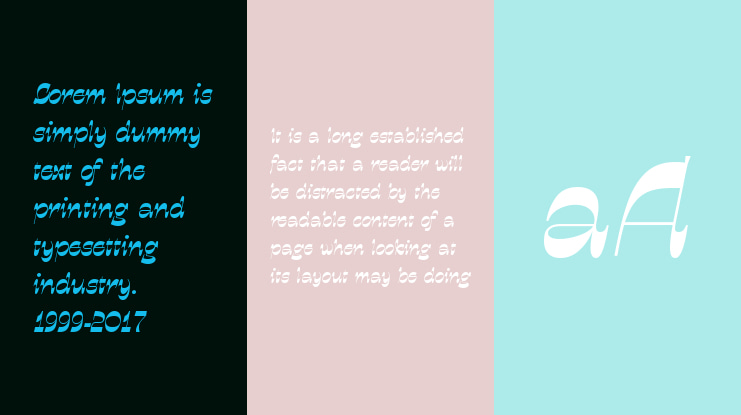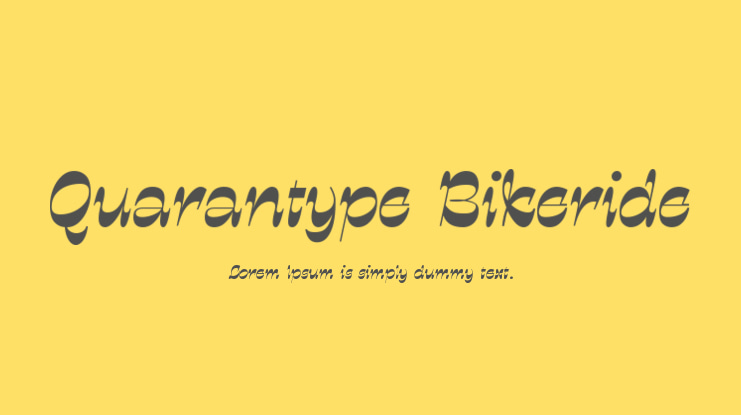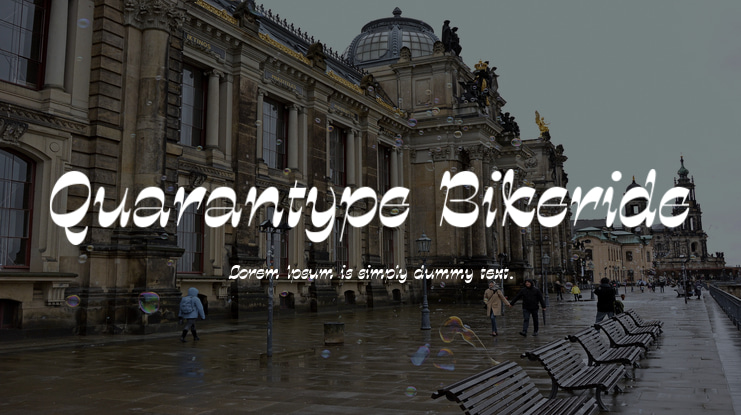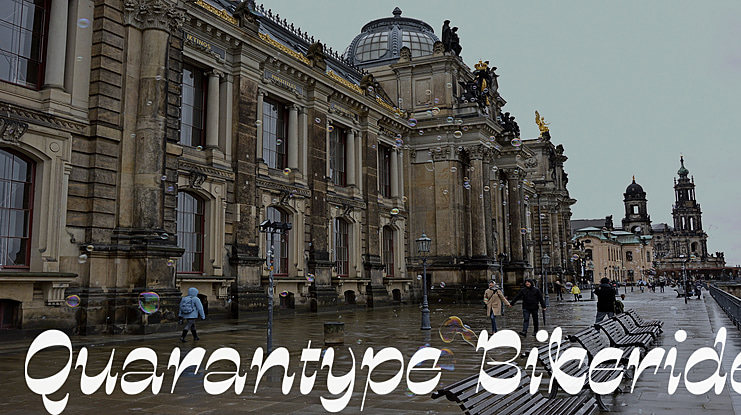
Quarantype Bikeride Font
Andrea Tartarelli
Trapped home during the Coronavirus outburst of March 2020 the Zetafonts team found some solace from the world-wide anxiety by designing letters for the #36daysoftype challenge. To fight dark thoughts and spread some good karma we decided to add a free font twist, selecting the best glyphs drawn to develop a collection of ten free typefaces for download.
We did our best to make this little gift to the community valuable, though developed in record time: although playful and excessive, these typefaces all stem from our current research in contemporary trends and historical design solutions, bridging calligraphy and design.